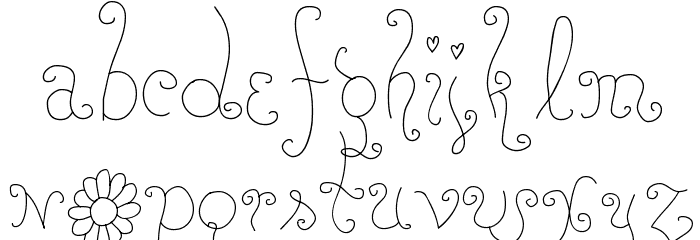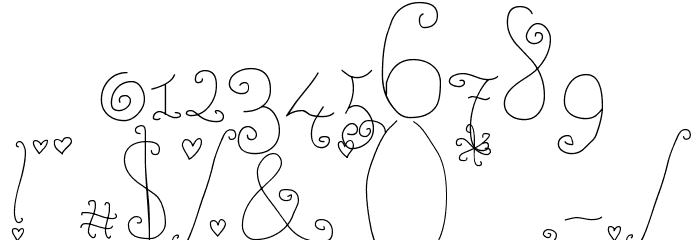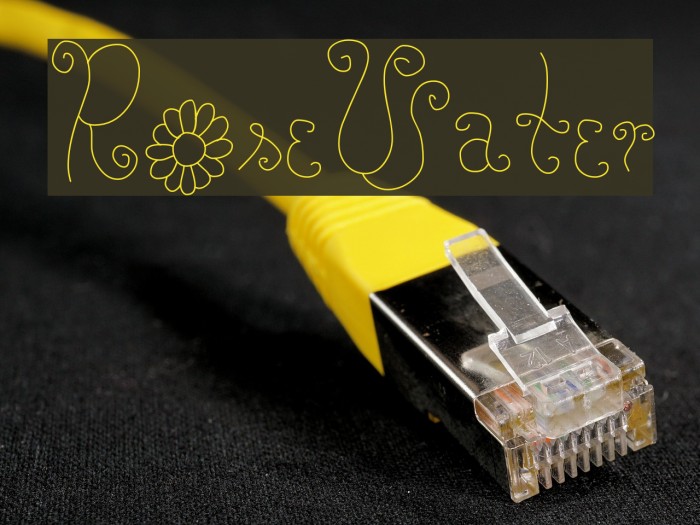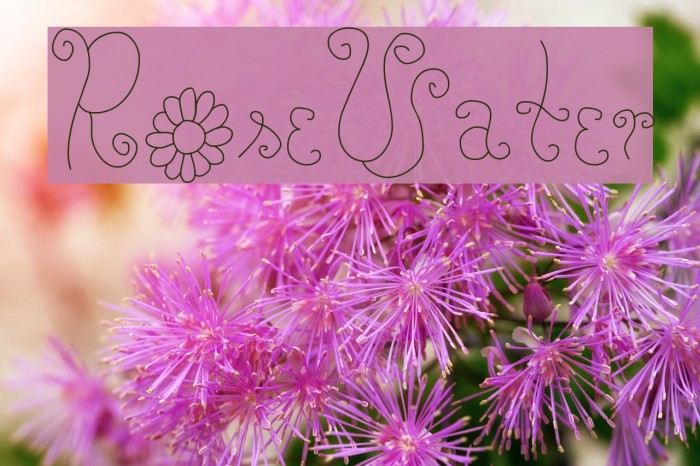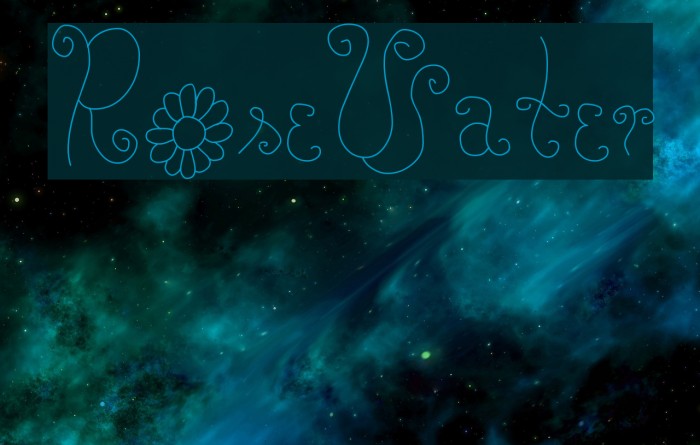
RoseWater Font
This whimsical and decorative font features playful, curly lines with a hand-drawn aesthetic. Each character is adorned with unique flourishes, such as loops and swirls, giving it a lively and artistic feel. The uppercase letters are particularly ornate, with some incorporating floral motifs, while the lowercase letters maintain a consistent, flowing style. Numbers and special characters are equally embellished, with some characters featuring heart shapes and other decorative elements. The overall design is light and airy, making it ideal for creative and informal applications.
A whimsical, decorative font with playful curls and flourishes.
- Proposed Projects: Ideal for greeting cards, invitations, children's book covers, and playful branding projects.
- Use Case: Logos, Headlines, Invitations